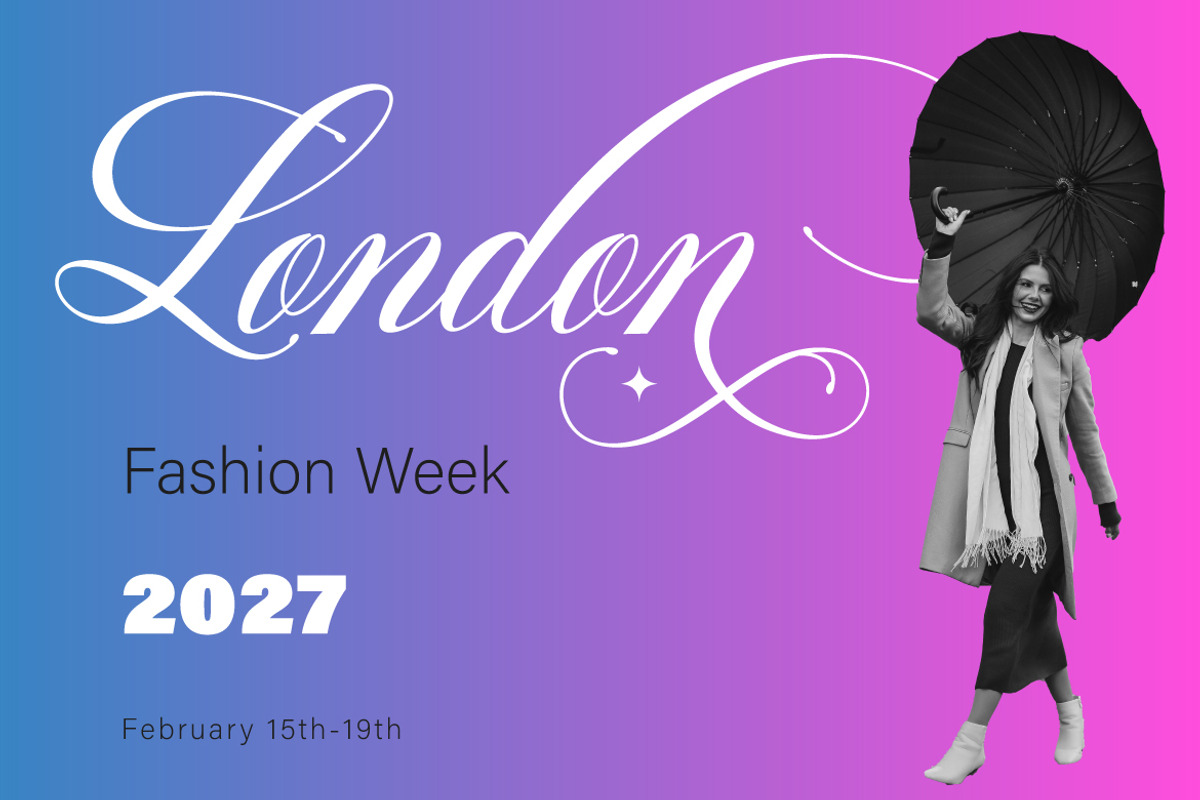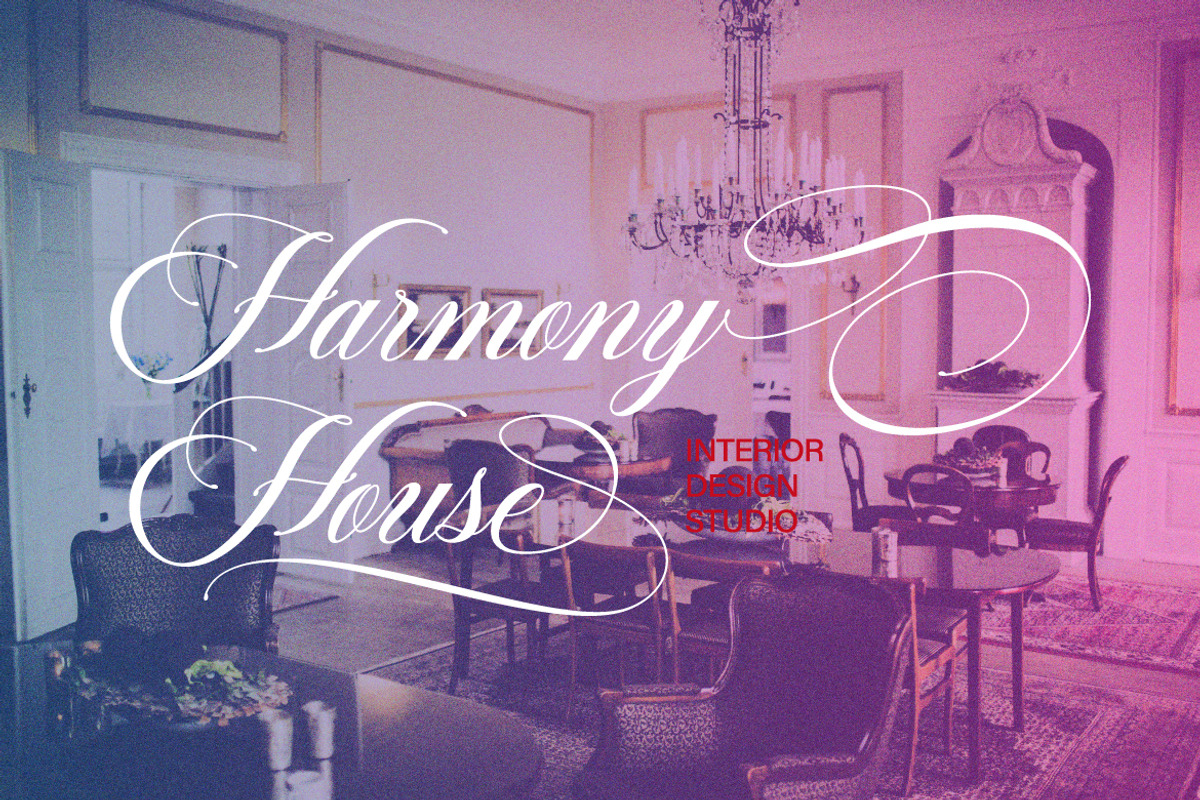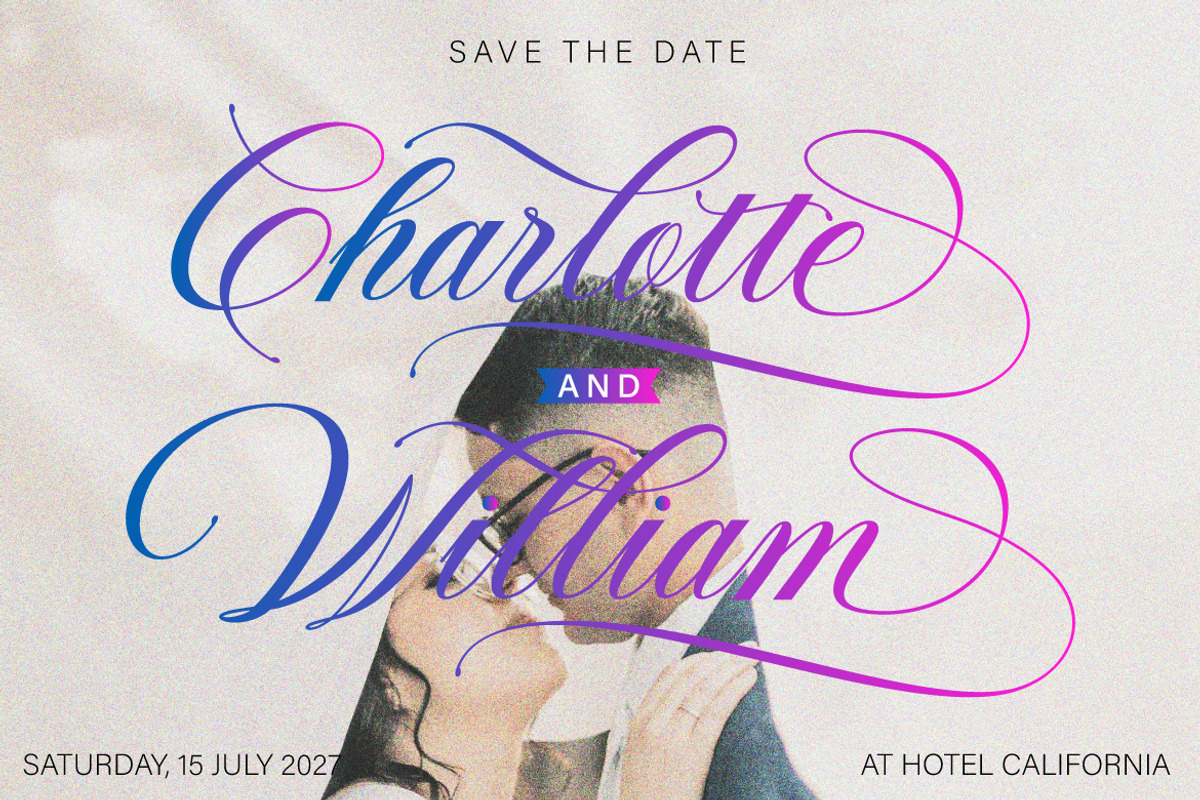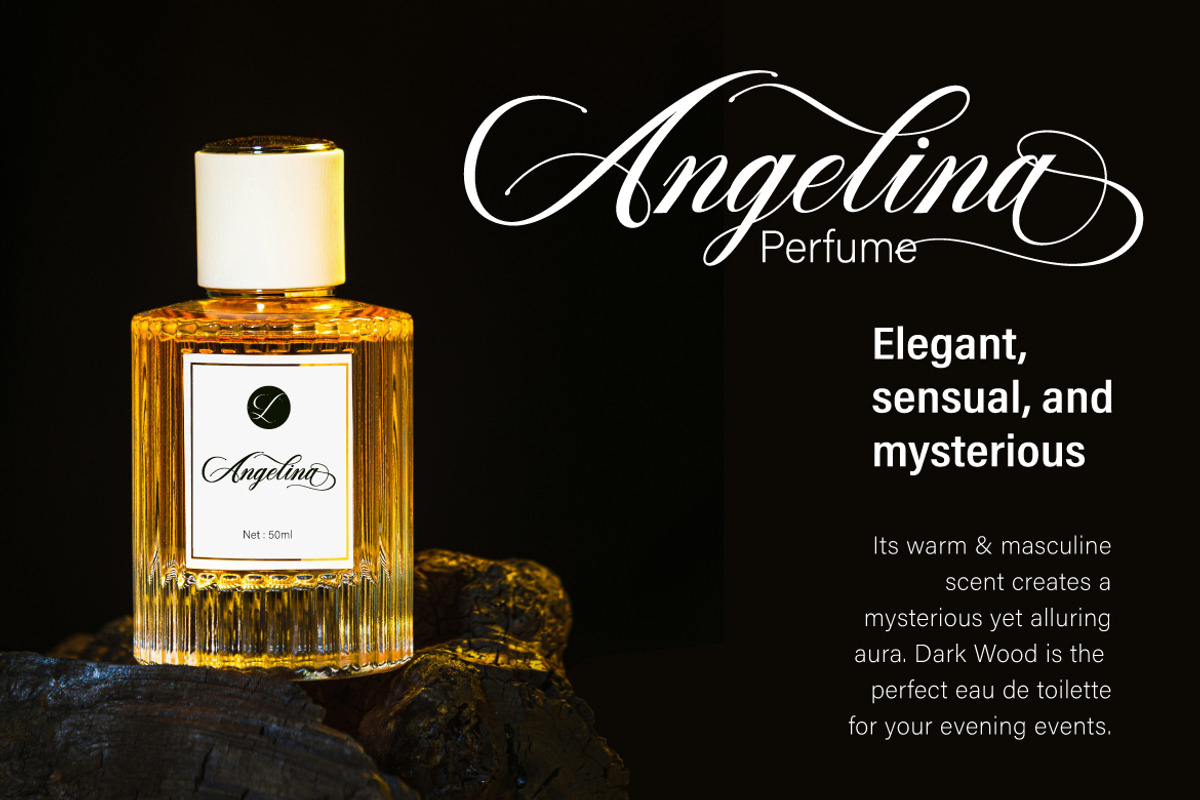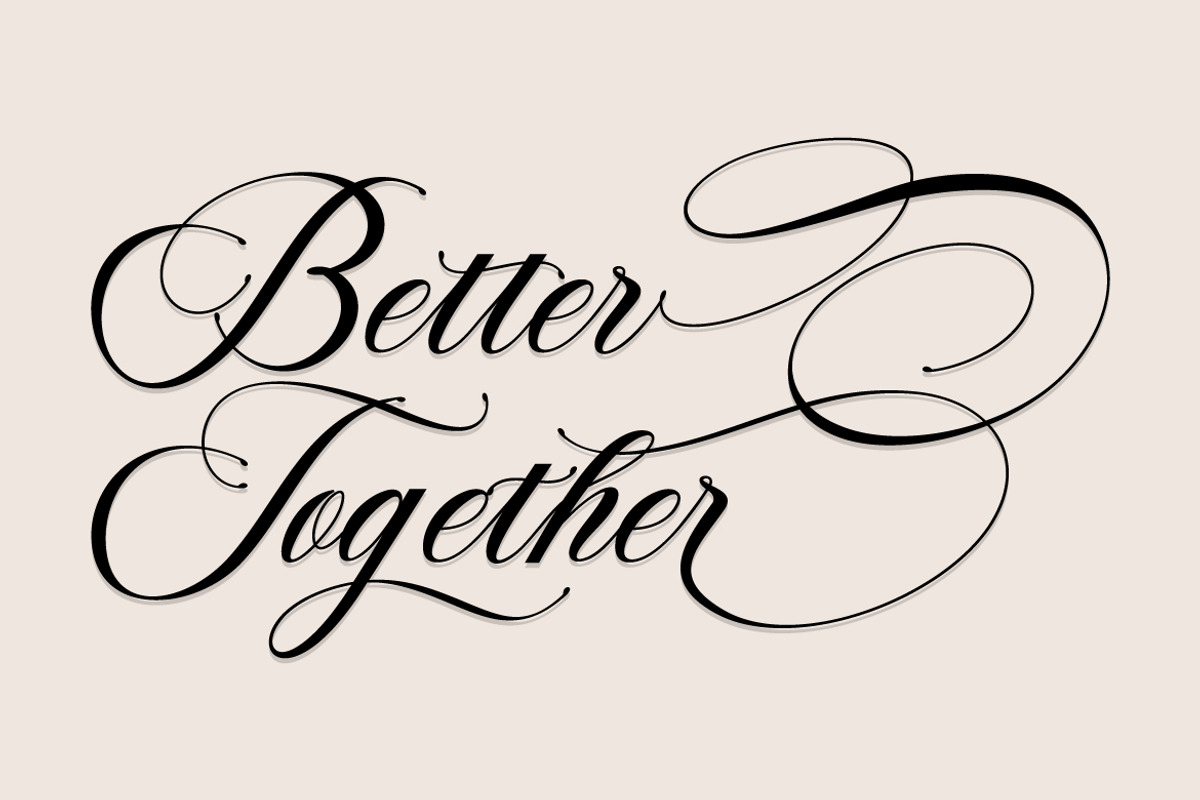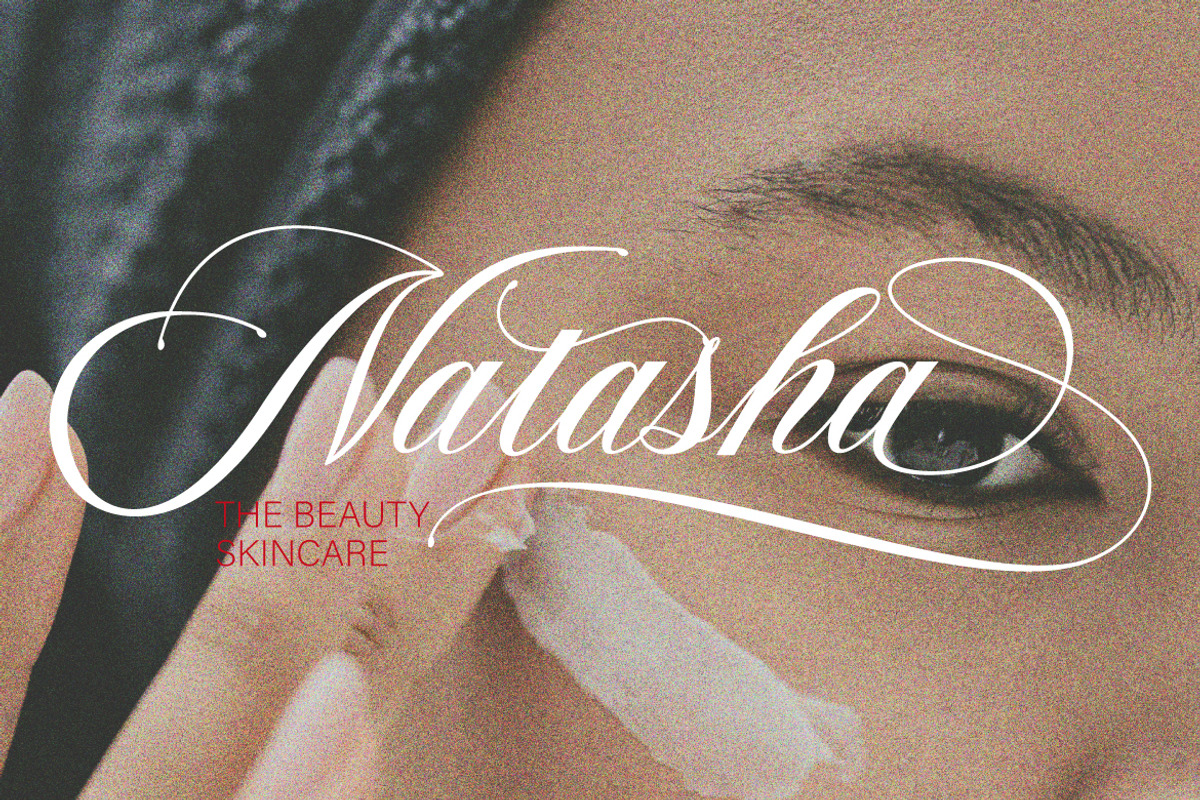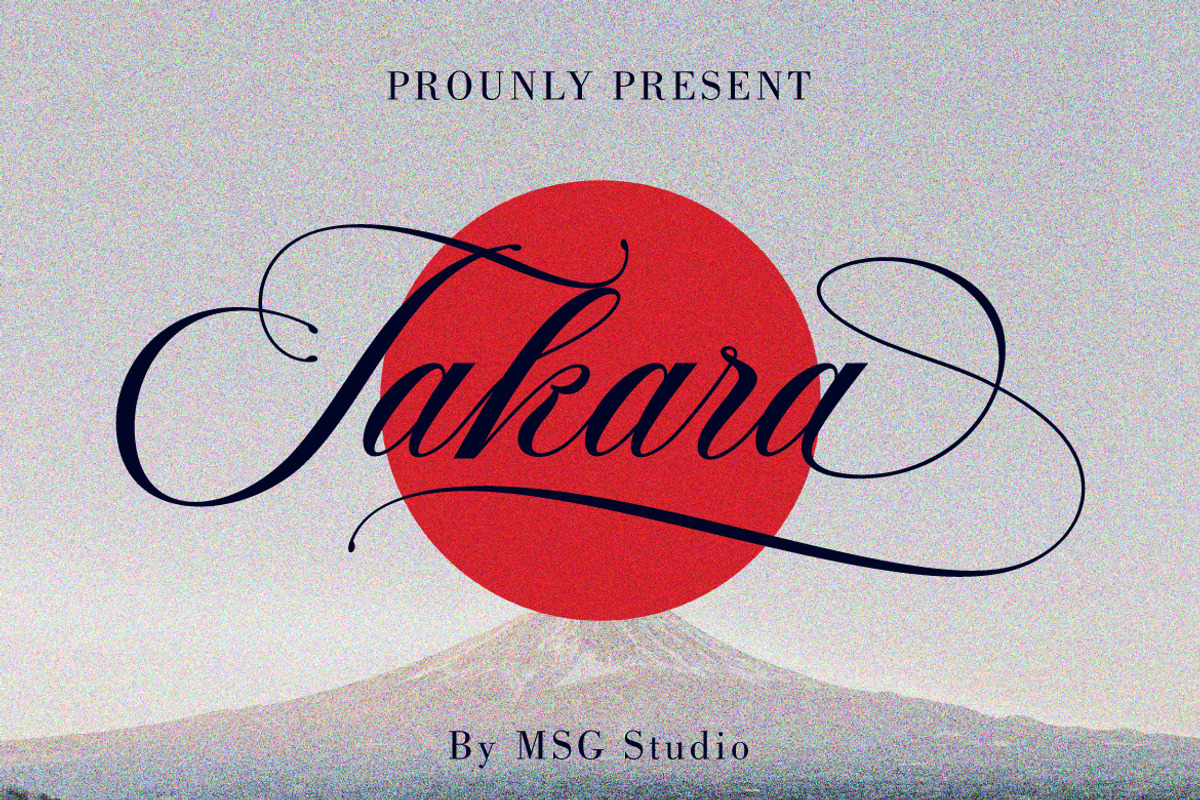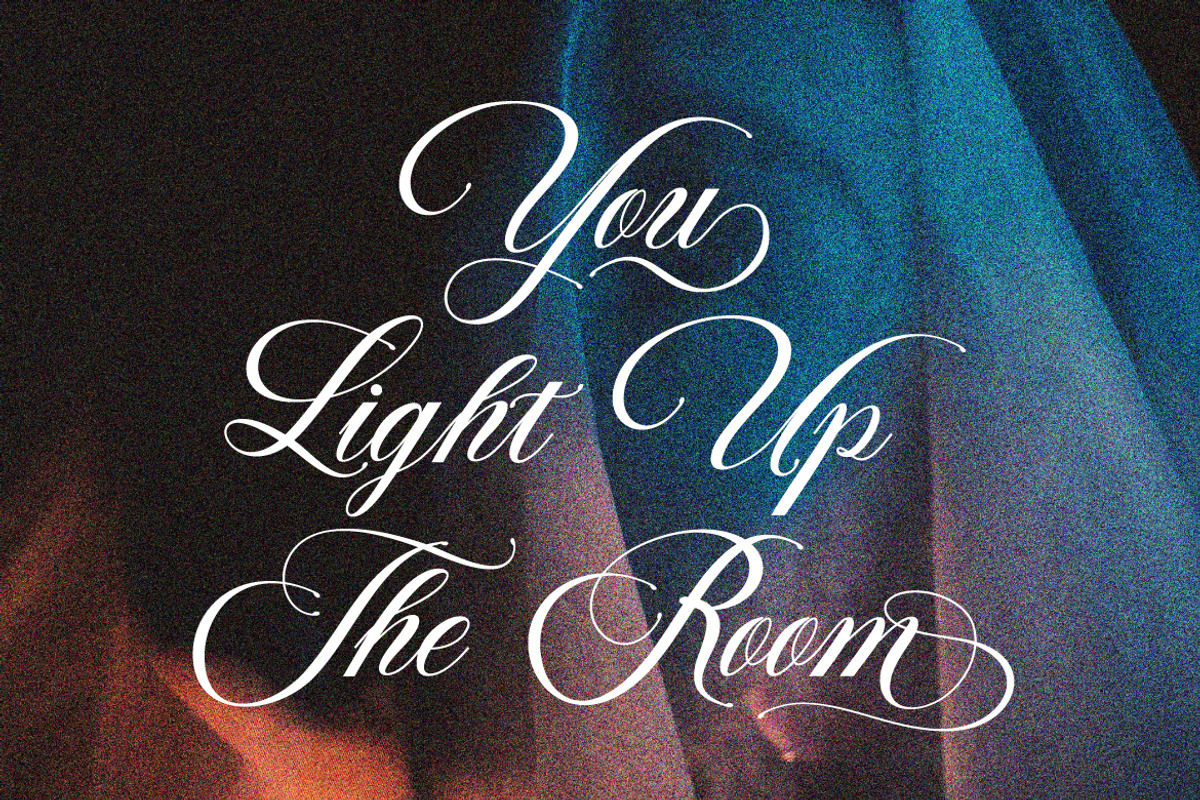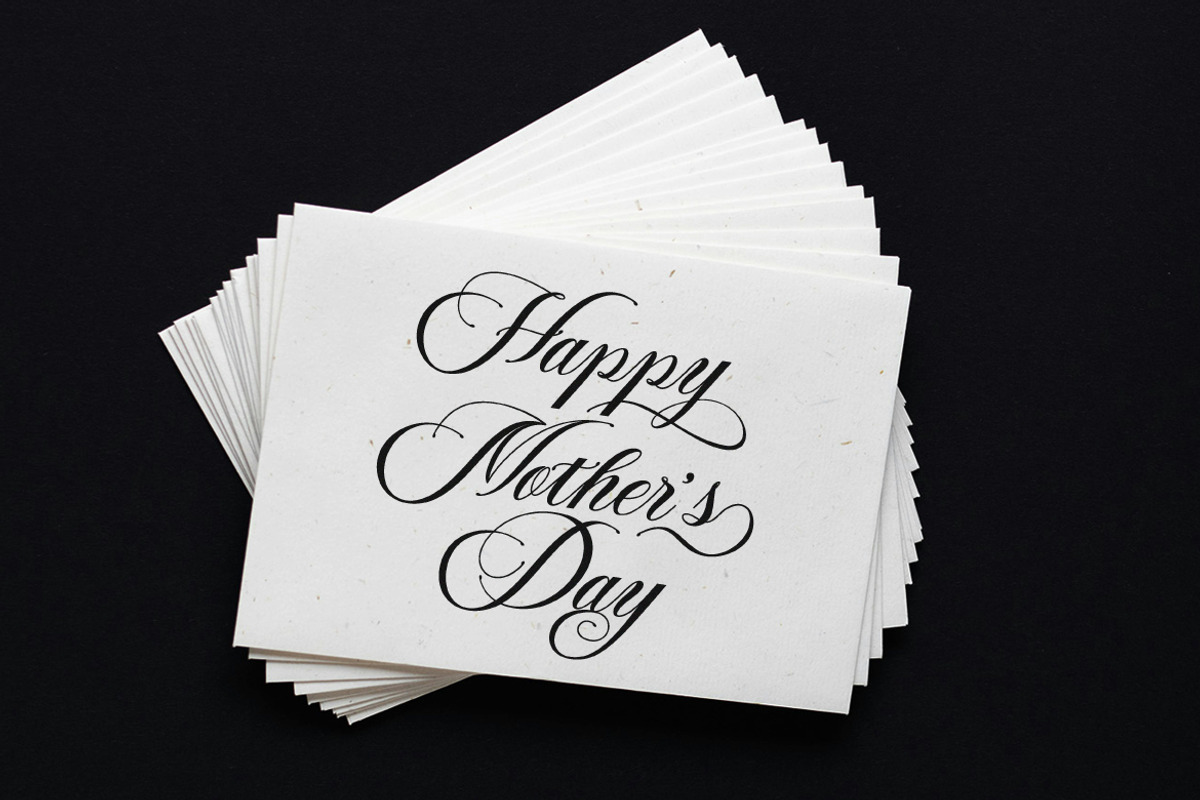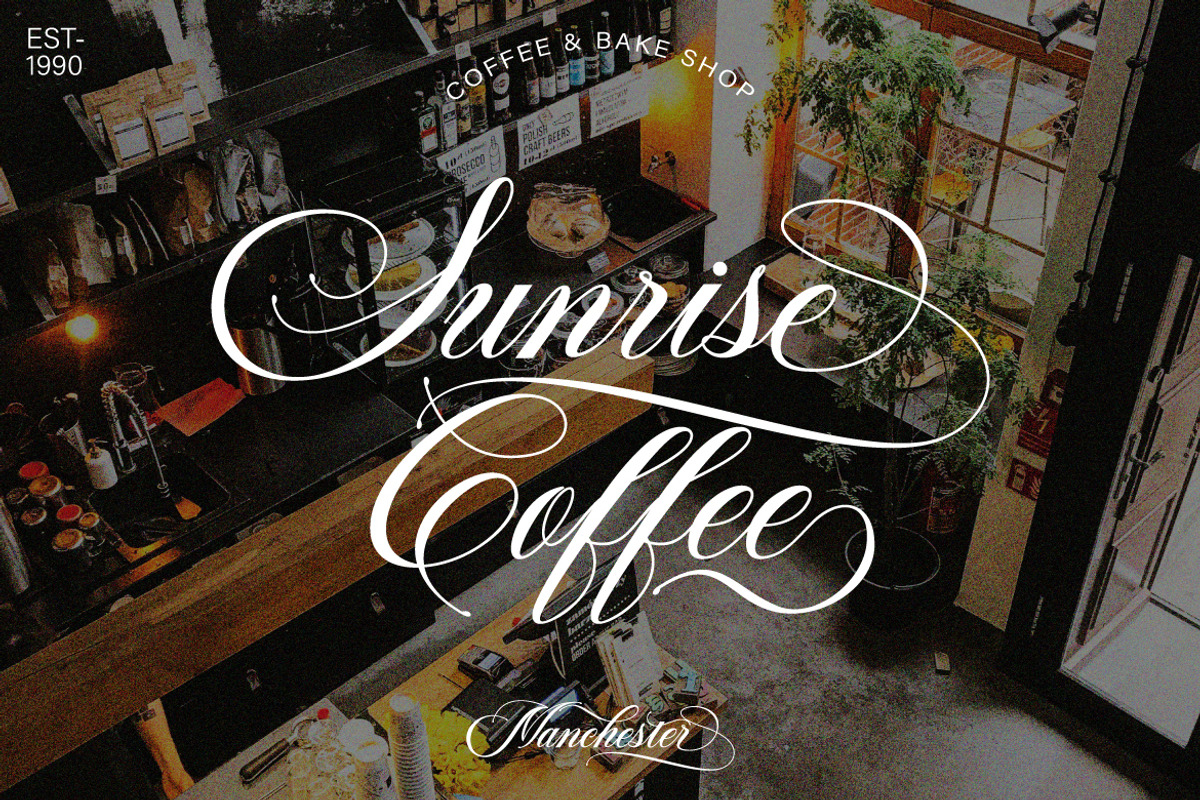
Takara
Takara is a handcrafted font with a stunning character. Ideal for logos, name tags, handwritten quotes, product packaging, merchandise, social media, and greeting cards. This font includes a full set of lowercase and uppercase letters, a wide variety of punctuation marks, numbers, and multilingual support.